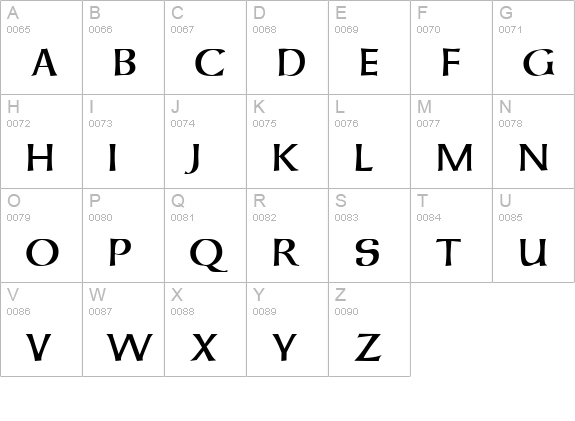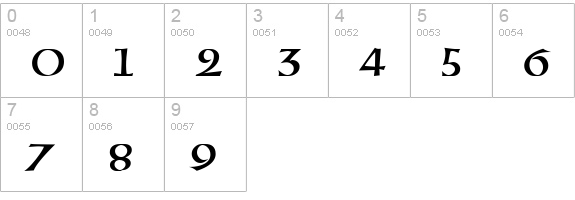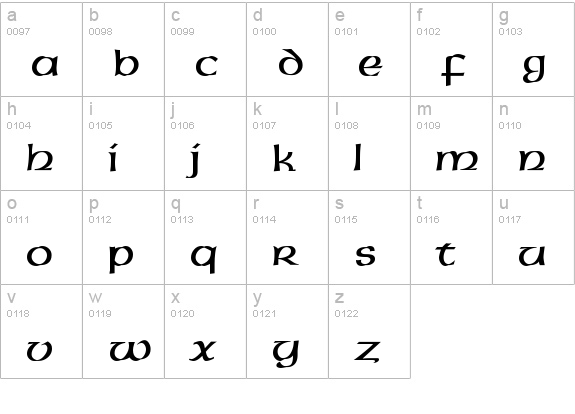
UncialRoundhand Regular Font Details
UncialRoundhand Regular is the standard, neutral variant in the UncialRoundhand typeface family \xE2\x80\x94 well suited to general body text, paragraphs, and standard typographic work.
UncialRoundhand Regular font is a stunning typeface that beautifully captures the elegance and sophistication of the Uncial calligraphy style. Its rounded and flowing letterforms exude a sense of timeless beauty and grace, making it perfect for adding a touch of refinement to any design project. With its balanced proportions and smooth curves, this font presents a harmonious blend of classic and modern aesthetics. Its clean lines and clear legibility make it versatile and easy to read, ensuring that your message is conveyed with clarity and style. This font is a true gem for designers and typographers alike, offering a wide range of potential applications. Whether you're working on logo designs, wedding invitations, book covers, or any other creative endeavor, UncialRoundhand Regular font will elevate your work to new heights. And the best part? This font is free! You can download it at FontsMarket.com, a reputable online platform that provides an extensive collection of high-quality fonts. With just a few clicks, you can have access to this remarkable typeface and unleash your creativity without any cost. So why wait? Embrace the beauty and versatility of UncialRoundhand Regular font in your next project and let it add a touch of sophistication and elegance. Download it for free at FontsMarket.com and discover the endless possibilities it holds for your design endeavors.